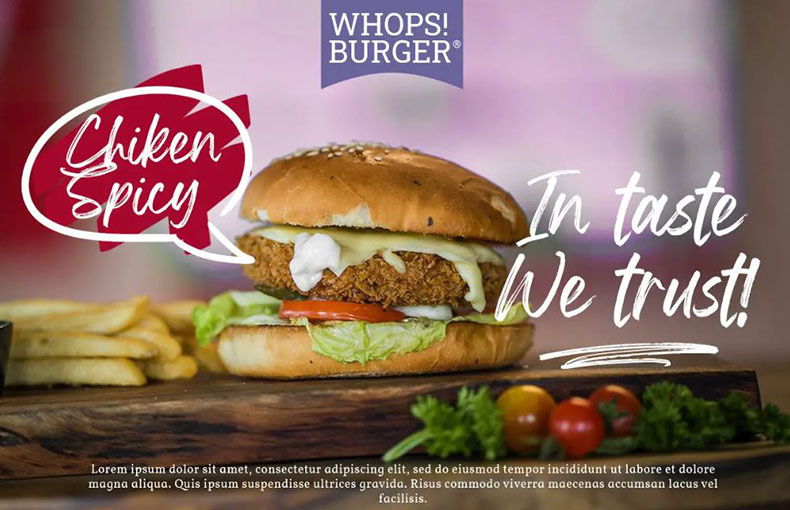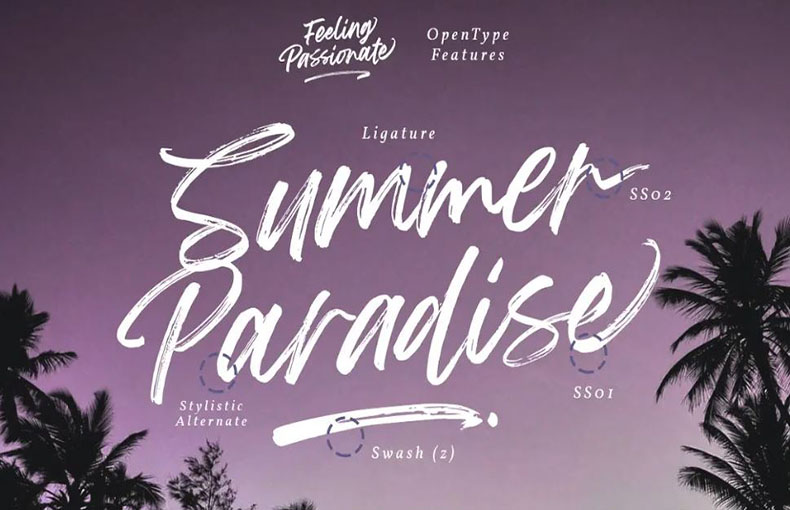
Feeling Passionate Brush Script Font is a casual hand-brush script typeface that is great for adding a touch of personality, and a luxurious, and modern style. It was designed and shared by Din Studio.
It is perfect for branding projects, logos, wedding designs, social media posts, advertisements, product packaging, T-shirt design, signs, and more.
The handwriting style is irregular but still beautiful, and you will enjoy using this font style. The font includes standard ligatures – to give the font a more natural, scripted look when there are double letters in your design.
Feeling Passionate Brush Script typeface comes in a single style along with TTF formats. This single style contains 308 glyphs and 16 ligatures. Moreover, it also supports 64 multilingual languages.
It is great for advertising, blog template design, thumbnail design, magazine design, and official use. Designers can easily pick this font for blog titling, website designing, art dеsigning, еbook covеr dеsigns, еmblеms, comic covеrs, and animated book cover design purposes.
This font supports 64 languages.
What is Feeling Passionate Brush Script Font?
Feeling Passionate Brush Script Font is a casual and beautiful brush font that is perfect for adding a touch of personality and flair to your designs. It is suitable for a wide variety of projects, including branding, fashion, print templates, quotes, weddings, and more.